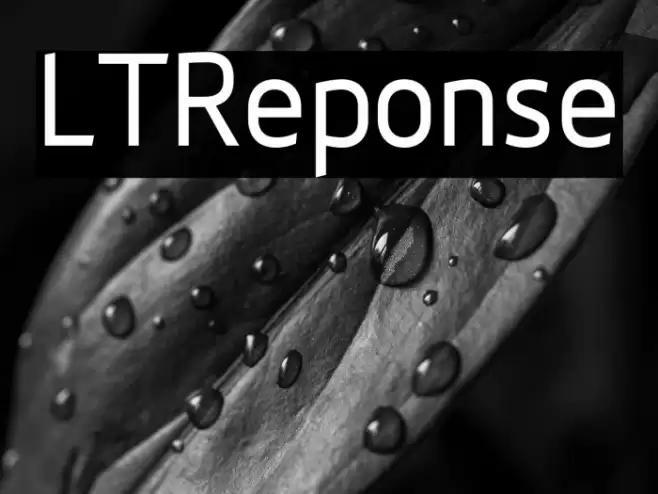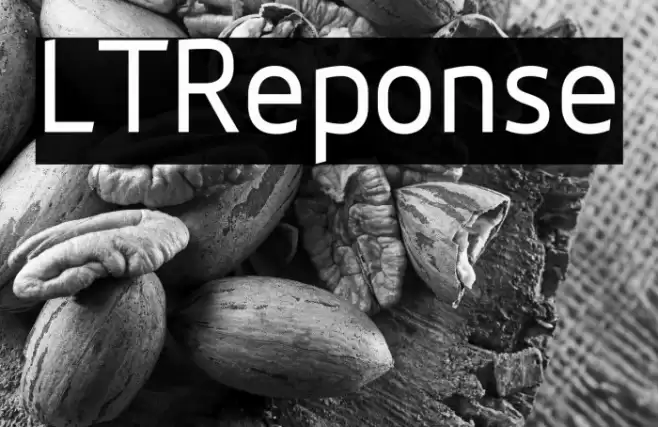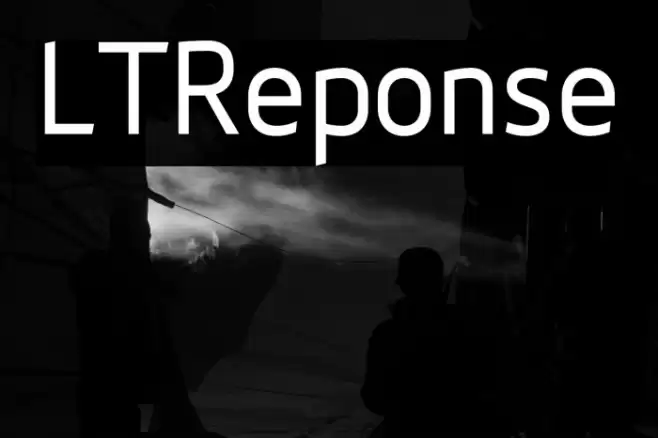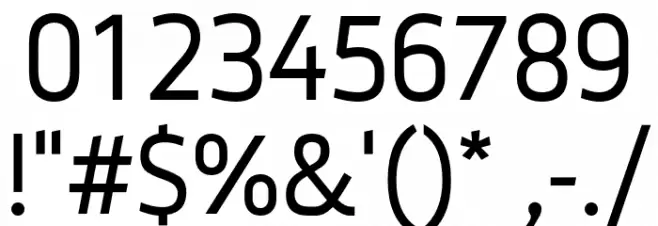
LTReponse Font
LTReponse Description
This font features a clean and modern sans-serif design, characterized by its geometric shapes and uniform stroke widths. The uppercase letters are bold and assertive, with a slight curvature that adds a touch of elegance. The lowercase letters maintain a consistent style, offering a harmonious blend of simplicity and sophistication. The numerals are clear and legible, making them suitable for various applications. Special characters are well-defined, ensuring versatility in design projects. Overall, this font exudes a contemporary feel, making it ideal for modern branding and digital interfaces.
A modern sans-serif font with geometric shapes and uniform strokes from Uncategorized fonts.